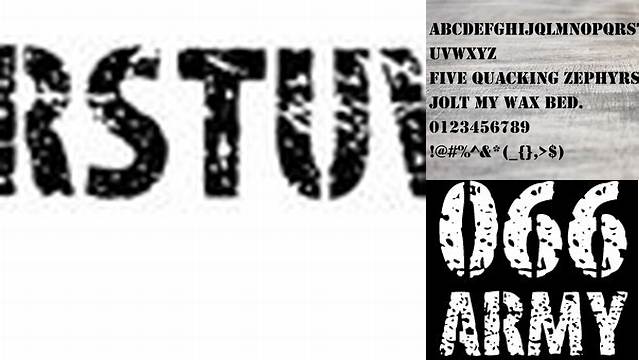
Hey guys! Are you on the hunt for that perfect 066 army font to give your project a rugged, military-inspired feel? Look no further! In this comprehensive guide, we'll dive deep into the world of army fonts, focusing specifically on the coveted 066 variant. We’ll explore where you can find these fonts for free download, how to use them effectively, and why they are such a popular choice for various design projects. Whether you're a graphic designer, a hobbyist, or just someone who appreciates the bold aesthetic of military typography, this article is for you. Let's get started and explore the powerful world of 066 army fonts!
What is an 066 Army Font?
The 066 army font isn't just any typeface; it's a symbol of strength, precision, and military might. Characterized by its bold, blocky letters and often stencil-like design, this font evokes a sense of authority and ruggedness. Think of the classic stencils you see on military vehicles, equipment, and documents – that's the essence of the 066 army font. This typeface is designed for legibility and impact, making it an ideal choice for various applications, from posters and logos to website headers and video game graphics. But what exactly makes an 066 army font stand out from other military-inspired typefaces? It’s the combination of its sturdy construction, clear readability, and the historical context it carries. The font's roots are deeply embedded in military tradition, where clear communication and quick identification are paramount. Therefore, when you use an 066 army font, you're not just choosing a typeface; you're embracing a legacy of precision and purpose. Understanding this legacy helps you appreciate the font's unique qualities and use it effectively in your projects.
Why Use an 066 Army Font?
So, why should you consider using an 066 army font in your designs? The reasons are plentiful! First and foremost, the font exudes a powerful, authoritative vibe that can instantly grab attention. It’s perfect for projects where you want to convey a sense of strength, resilience, or urgency. Imagine using it for a video game title, a fitness brand logo, or a poster promoting an adventurous event. The bold, no-nonsense character of the font makes it incredibly versatile for various applications. Beyond its aesthetic appeal, the 066 army font also offers excellent readability. Its clear, blocky letters are designed to be easily read from a distance, making it ideal for headlines, banners, and other large-format displays. This readability is crucial in ensuring your message gets across effectively, whether it's on a website, a physical poster, or a piece of merchandise. Furthermore, the historical context of the font adds a layer of authenticity to your projects. By using an 066 army font, you're tapping into a visual language that has been used for decades in military and industrial settings. This connection to the past can add depth and meaning to your design, making it more engaging and memorable. Whether you're aiming for a vintage military look or a modern, industrial feel, the 066 army font can be a valuable asset in your design toolkit. The key is to use it purposefully and in contexts where its inherent qualities can truly shine. This font isn't just about looking cool; it's about communicating a specific message and evoking a particular emotion. So, think carefully about the message you want to send, and consider how the 066 army font can help you achieve your goals.
Tips for Using Army Fonts in Design
Using an army font, like the 066, effectively in design requires more than just installing it and typing away. It's about understanding the font's inherent qualities and leveraging them to create impactful visuals. Here are some tips to help you make the most of army fonts in your design projects. First, consider the context of your design. Army fonts evoke a sense of strength, authority, and ruggedness, so they're perfect for projects related to military themes, outdoor adventures, industrial settings, or anything that needs a bold, no-nonsense feel. However, using an army font in a design for, say, a delicate floral arrangement might not be the best choice. Think about the message you want to convey and whether the font aligns with that message. Next, pay attention to font pairing. While an army font can be a powerful standalone element, pairing it with the right complementary typeface can elevate your design even further. Opt for clean, simple fonts for body text to create a contrast and ensure readability. Sans-serif fonts like Helvetica, Arial, or Open Sans often work well with the bold character of army fonts. Avoid pairing it with other overly decorative or script fonts, as this can create a cluttered and confusing look. Another crucial aspect is the use of color. Army fonts often look great in strong, contrasting colors like black, white, olive green, or even metallic tones. These colors enhance the font's boldness and reinforce its military aesthetic. Experiment with different color combinations to see what works best for your design, but generally, sticking to a limited palette will help maintain a cohesive look. Don't be afraid to play with layering and effects. Adding subtle shadows, outlines, or textures to your army font can create depth and visual interest. However, be careful not to overdo it – the goal is to enhance the font's inherent qualities, not to obscure them. Consider using these fonts in conjunction with other military-themed graphics, such as camouflage patterns, badges, or icons, to reinforce the theme. But again, moderation is key. A well-placed graphic can add to the design, but too many elements can make it feel cluttered and overwhelming. Finally, always prioritize readability. While army fonts are designed to be legible, using them in small sizes or in complex layouts can reduce their effectiveness. Ensure the font is large enough to be easily read, and use sufficient spacing between letters and lines. By following these tips, you can effectively incorporate army fonts into your designs and create visually compelling pieces that command attention.